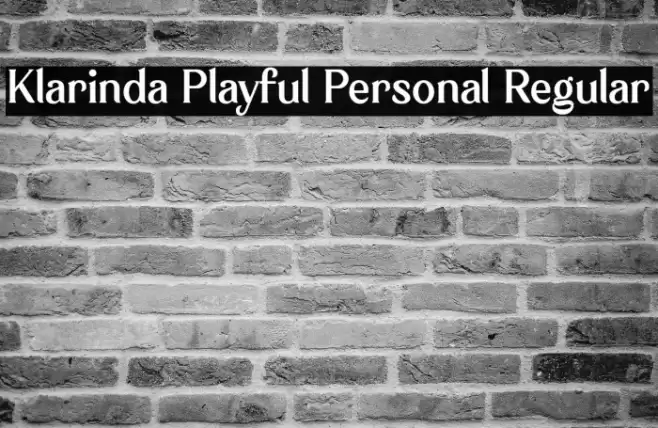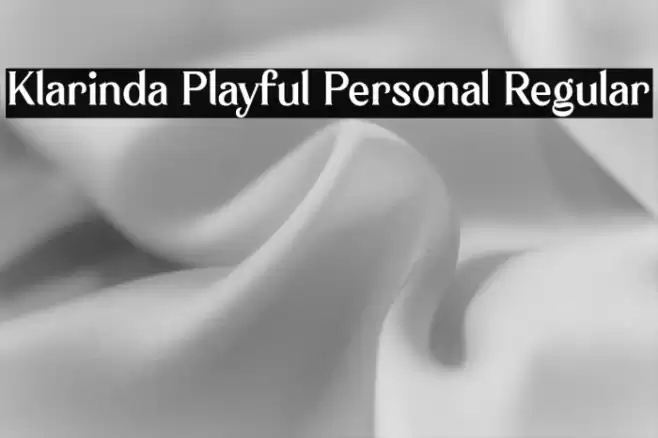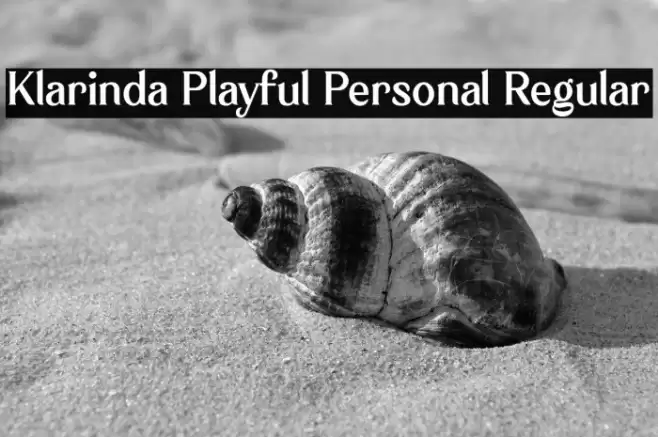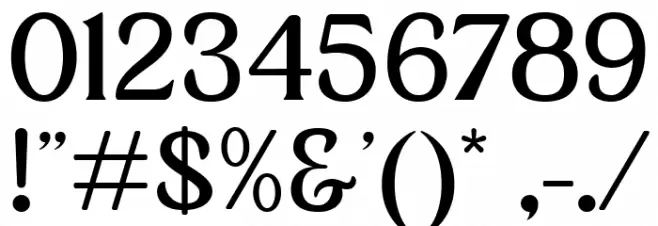
Klarinda Playful Personal Regular Font
Klarinda Playful Personal Regular Description
This font features a playful and personal style with a regular weight that adds a touch of whimsy to any text. The characters have a slightly rounded appearance, giving them a friendly and approachable look. The uppercase letters are bold and well-defined, while the lowercase letters maintain a consistent flow with subtle curves. The numerals are clear and easy to read, making them suitable for various applications. Special characters are included, adding versatility to the font's use. Overall, this font combines a classic serif structure with a modern twist, making it ideal for creative projects.
A playful serif font with a personal touch and regular weight from Regular fonts.
- Proposed Projects: Ideal for children's books, playful branding, invitations, and creative posters.
- Overall Style: Playful, Modern
- Use Case: Headlines, Logos, Invitations